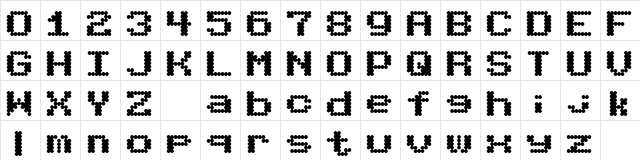
BubbleBath Regular Free Font
BubbleBath Regular
Design Context for BubbleBath
BubbleBath has an approachable, lighthearted character - its loose, expressive forms are well-suited to children's content, casual branding, and fun-first design.
Font Pairing: Pairs well with a rounded or humanist sans for body copy, maintaining the friendly tone without relying on BubbleBath to carry extended reading.
Pro Tip: Use BubbleBath at larger display sizes where its expressive character can land. Pair with a clean, simple sans for body copy to maintain readability.